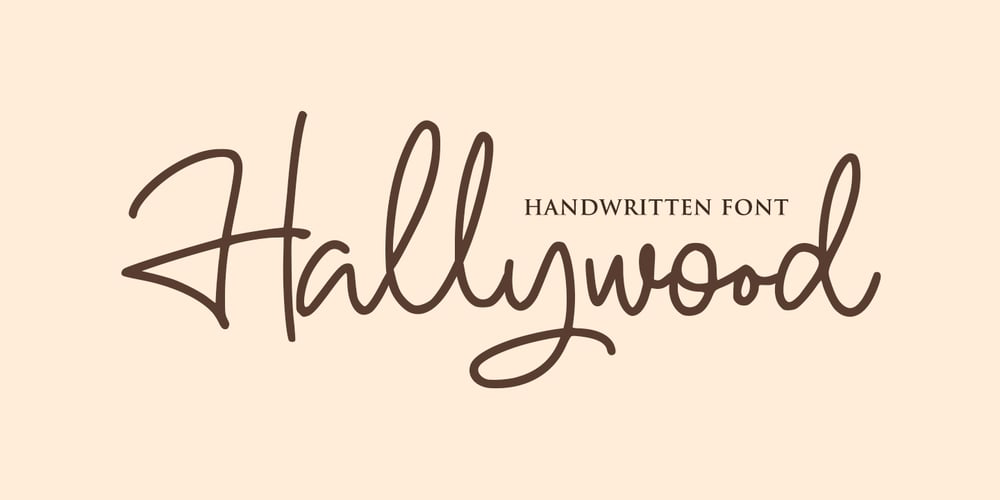
Hallywood
Hallywood font
Hallywood Font Family was designed by Virgiawan Listanto and published by Stringlabs Creative Studio. Hallywood contains 1 styles and family package options. Hallywood is a sweet handwritten font. It’s perfect for logos, wedding invitations, signatures, advertising and much more! Hallywood is a flowing and elegant handwritten font, created with the help of a brush pen. Get inspired by its unique and beautiful style and add it to your favorite designs!